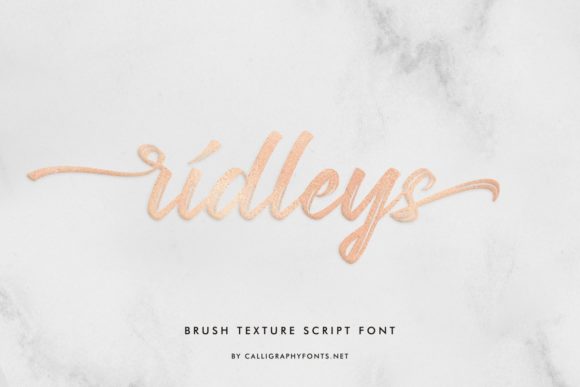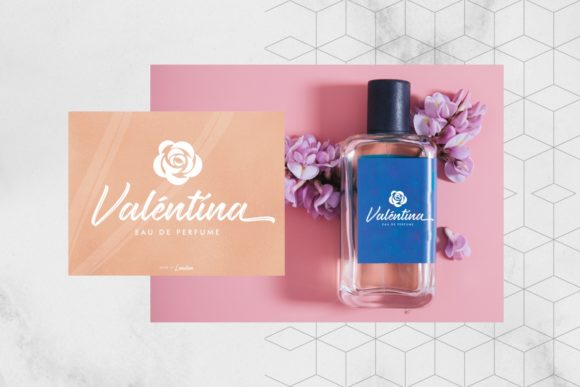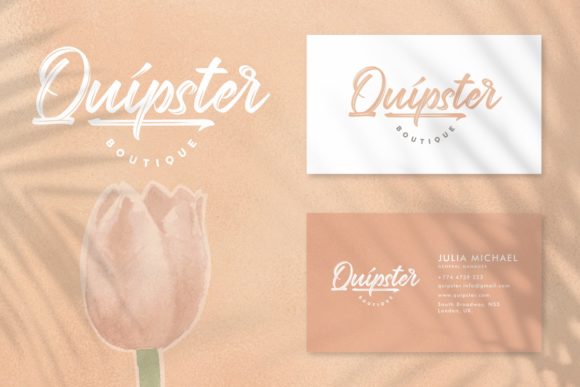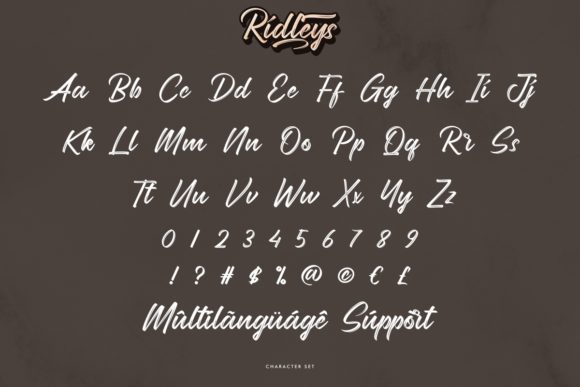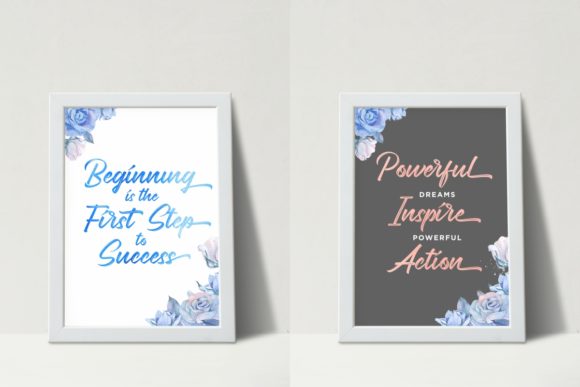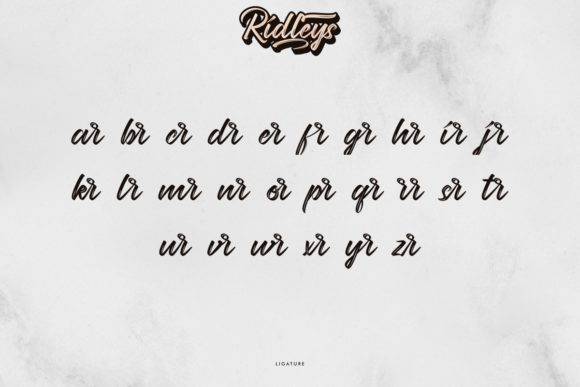
Introduction to Ridleys Font Font
Fonts play a crucial role in design, and the Ridleys Font font is a typeface that brings both character and versatility to any project. Whether you’re working on a branding project, a website, or a print design, the Ridleys Font font offers a unique style that can elevate your work.
Ridleys is a spectacular script font made in a brush style.
Add this font to your creative ideas and notice how it will make them stand out This font is PUA encoded which means you can access all of the glyphs and swashes with ease.
Key Features of Ridleys Font Font
The Ridleys Font font is more than just a typeface – it’s a design tool that helps you communicate your message with style and clarity. Its unique character set and versatile design make it suitable for a wide range of applications, from elegant invitations to bold headlines.
With its carefully crafted letterforms and balanced proportions, the Ridleys Font font ensures readability and visual appeal across all mediums.
The Ridleys Font font stands out with its unique design, exceptional readability, and versatility across various design applications.